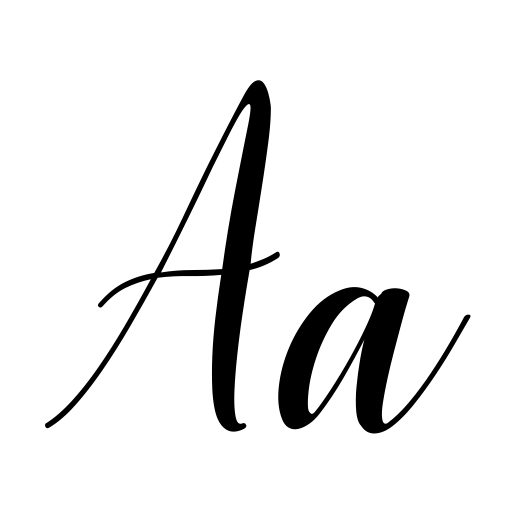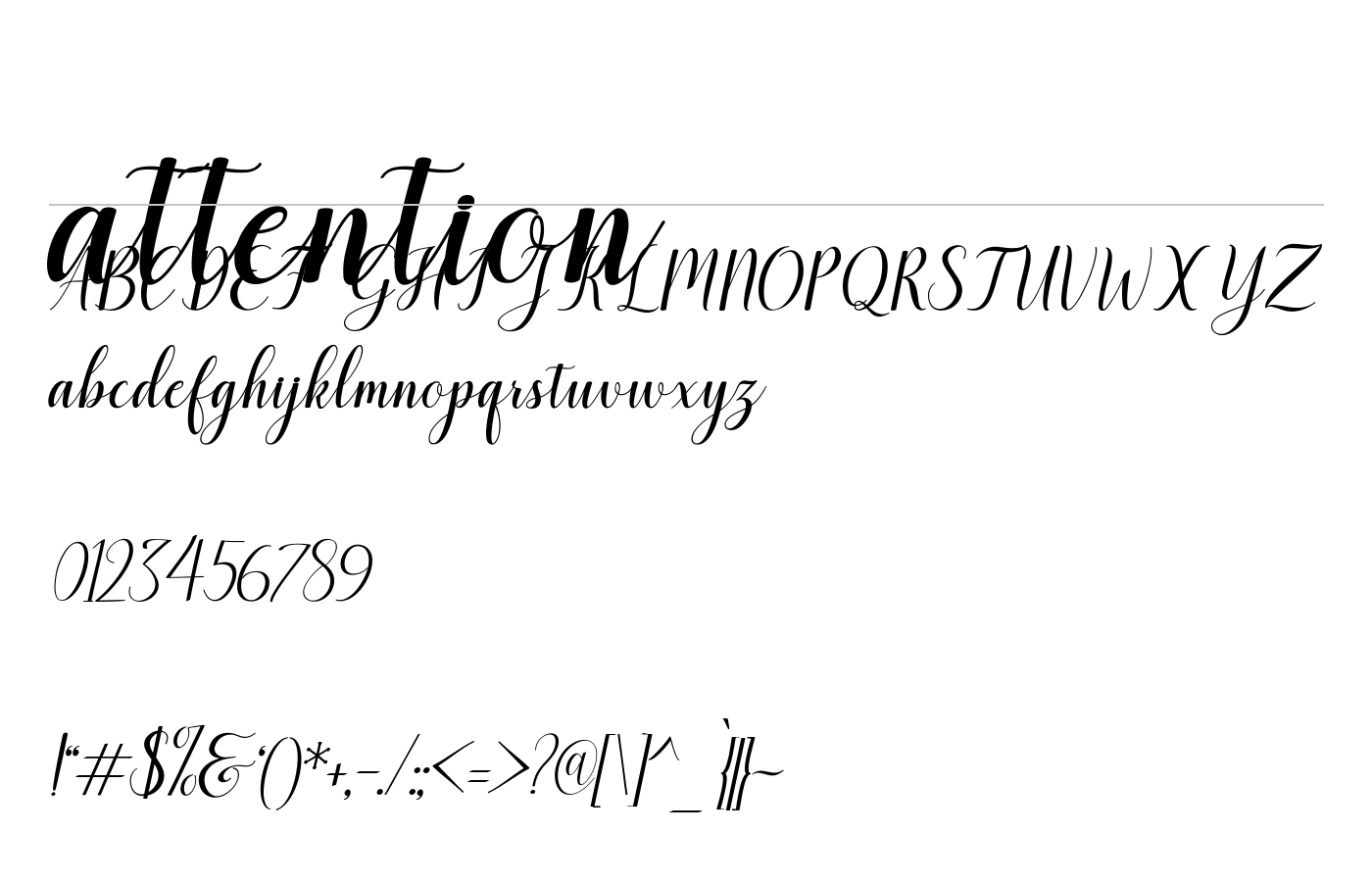
Attention Font is an elegant script typeface characterized by its flowing, calligraphic strokes and refined thin-to-thick contrast. It features graceful, elongated letterforms with a delicate and sophisticated feel, making it perfect for luxury branding, invitations, and stylish editorial designs where a sense of refinement and personal touch is desired. This font works best in headlines and decorative text, lending a classy and expressive tone to any project.
attention Font
About attention Font
| Font family | attention Font |
| Designer | Zulkhairi M Saleh |